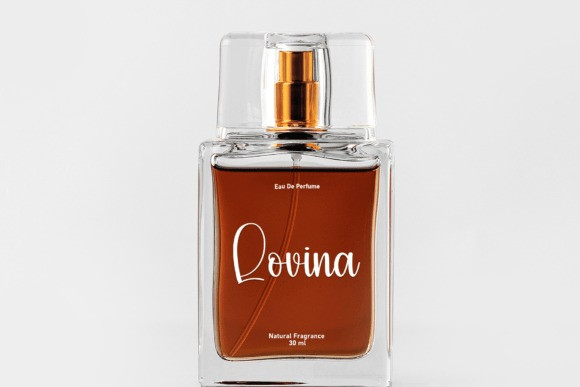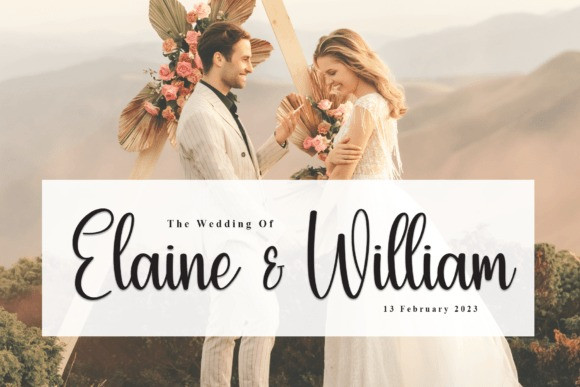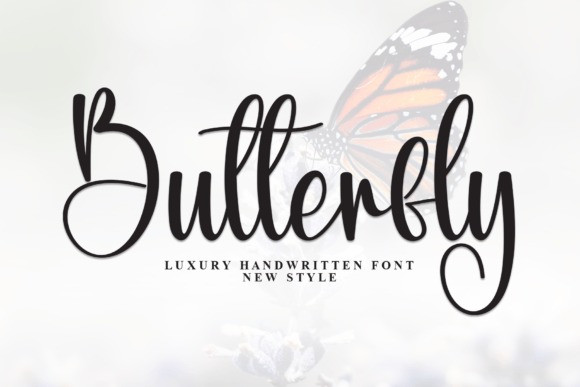
Butterfly Handwriting Type
Butterfly Handwriting Type is a sweet and friendly handwritten font. Its natural and unique style makes it incredibly fitting to a large pool of designs. The only limit is your imagination!